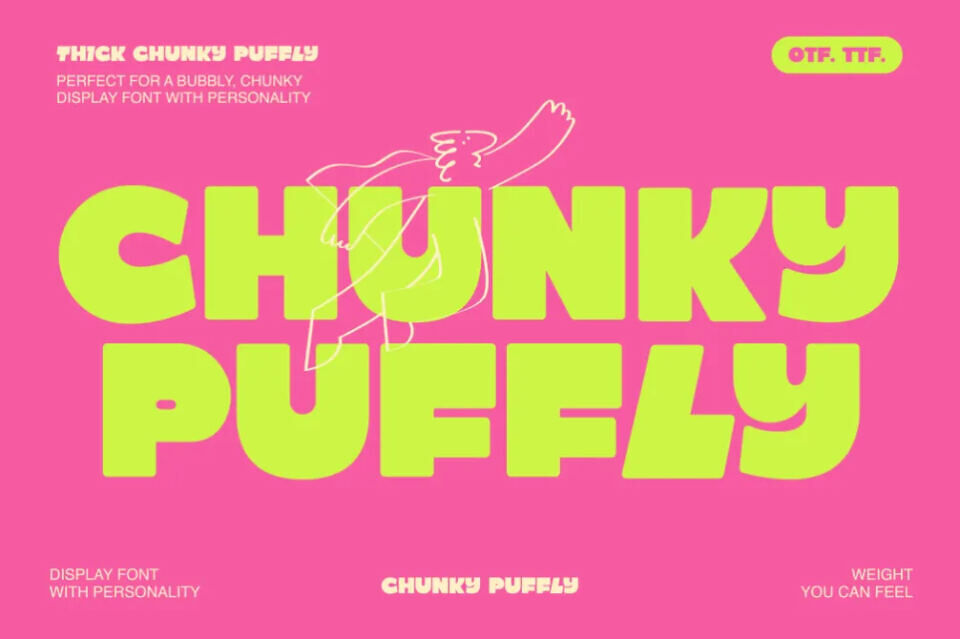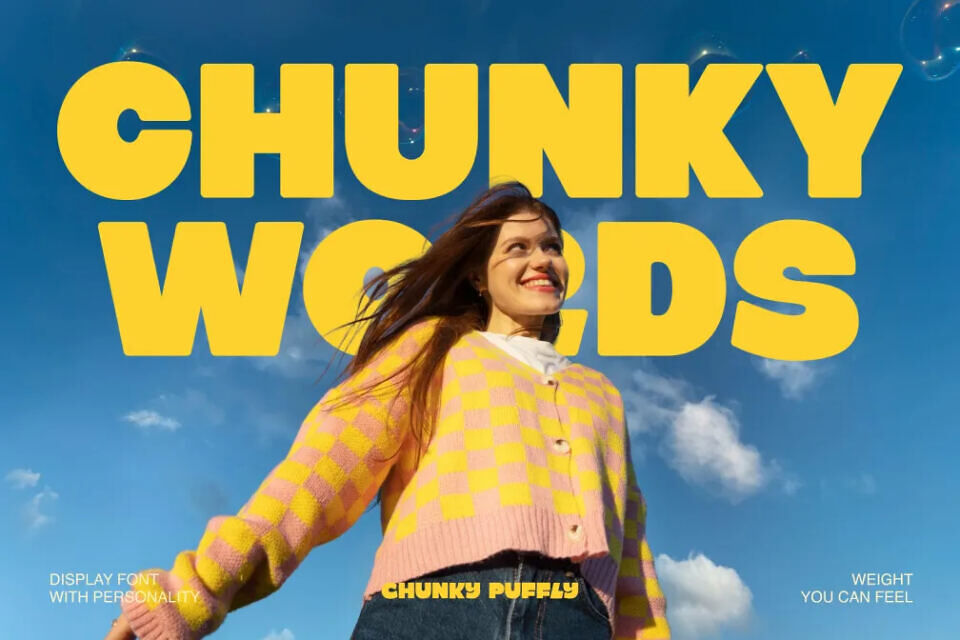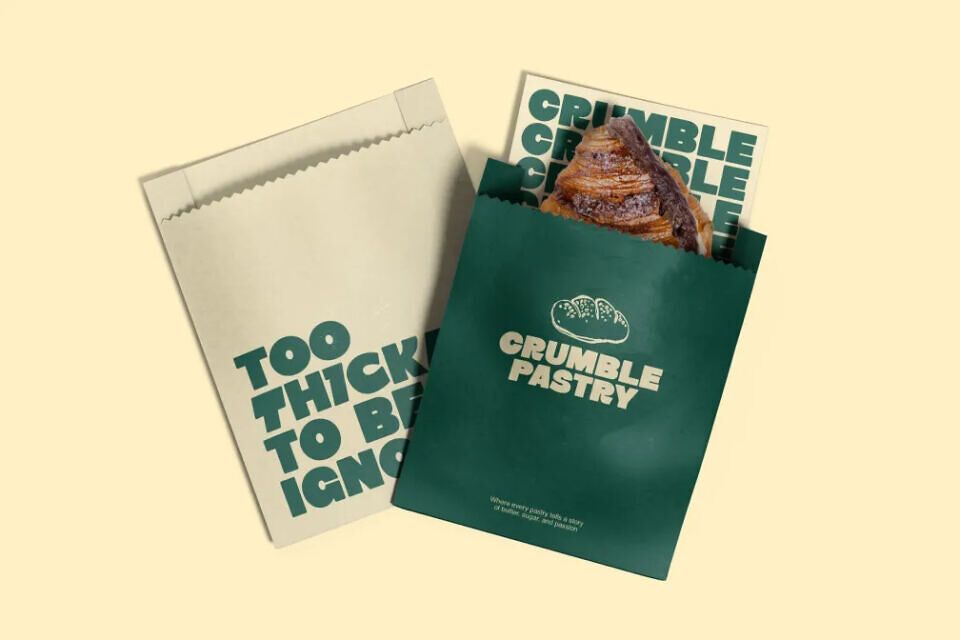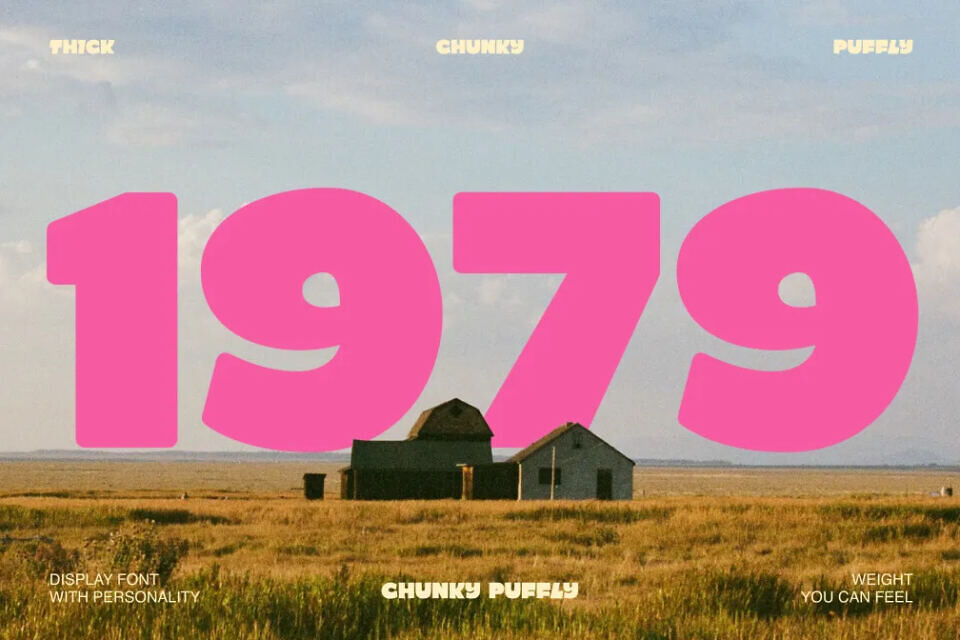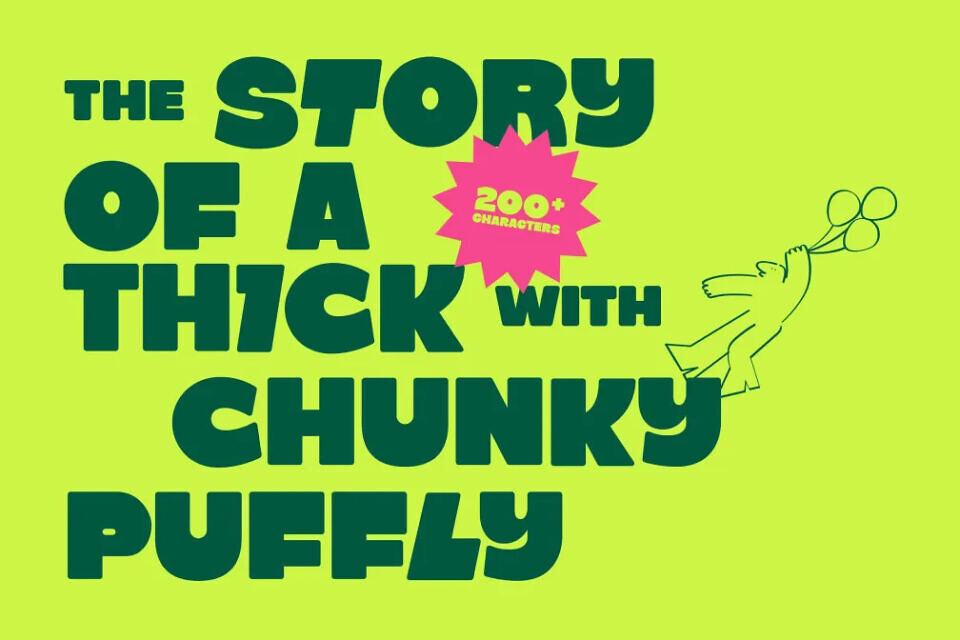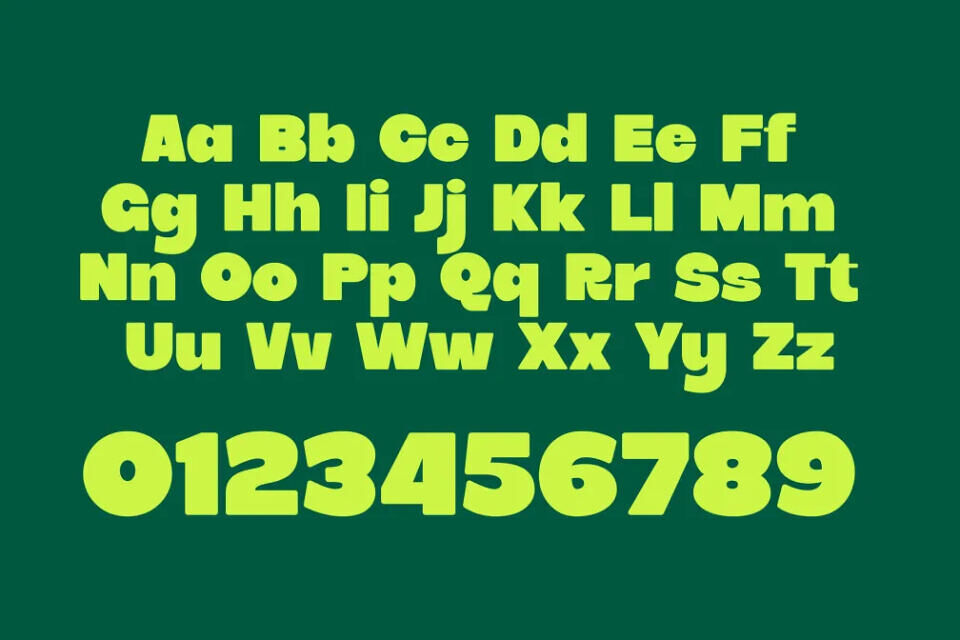
Chunky Puffly Font
Chunky Puffly Font is a bold, bubbly display typeface bursting with personality. Its thick, rounded letters create a playful, puffy aesthetic perfect for eye-catching posters, logos, and fun branding projects. With smooth curves and a soft yet impactful presence, Chunky Puffly delivers a retro yet modern vibe that stands out in any design.